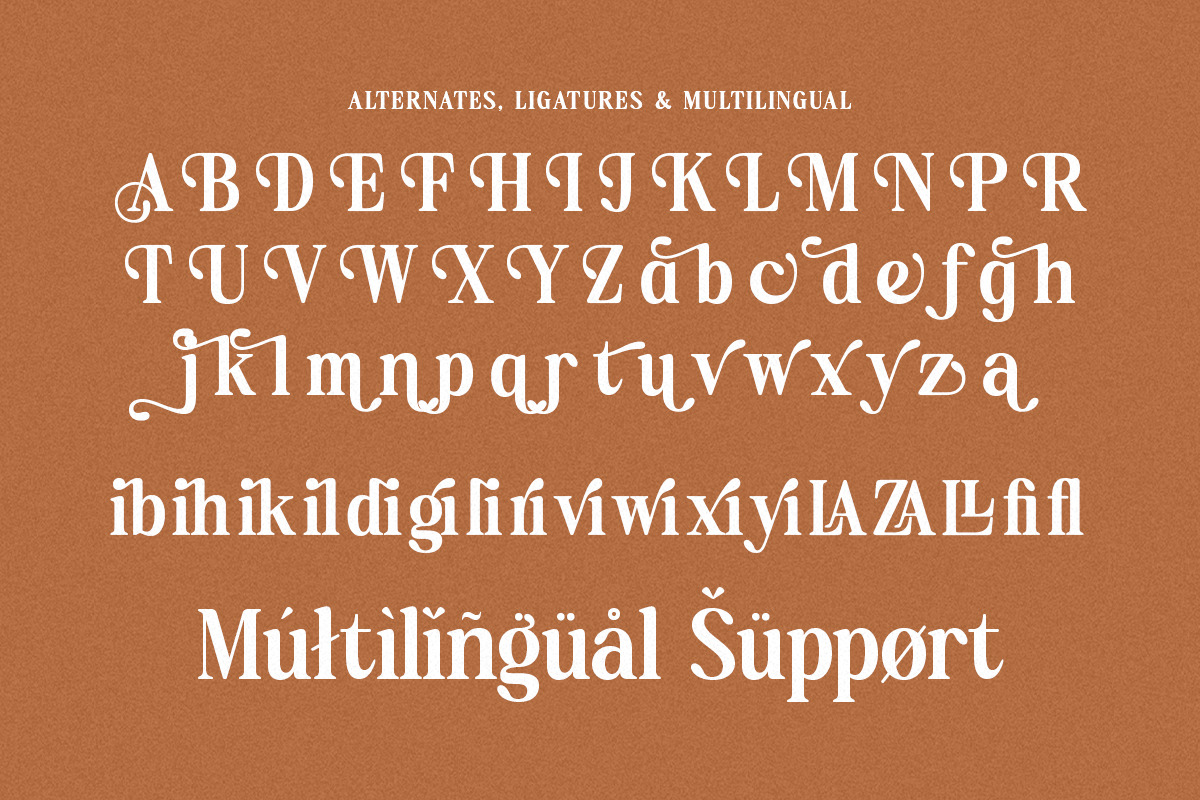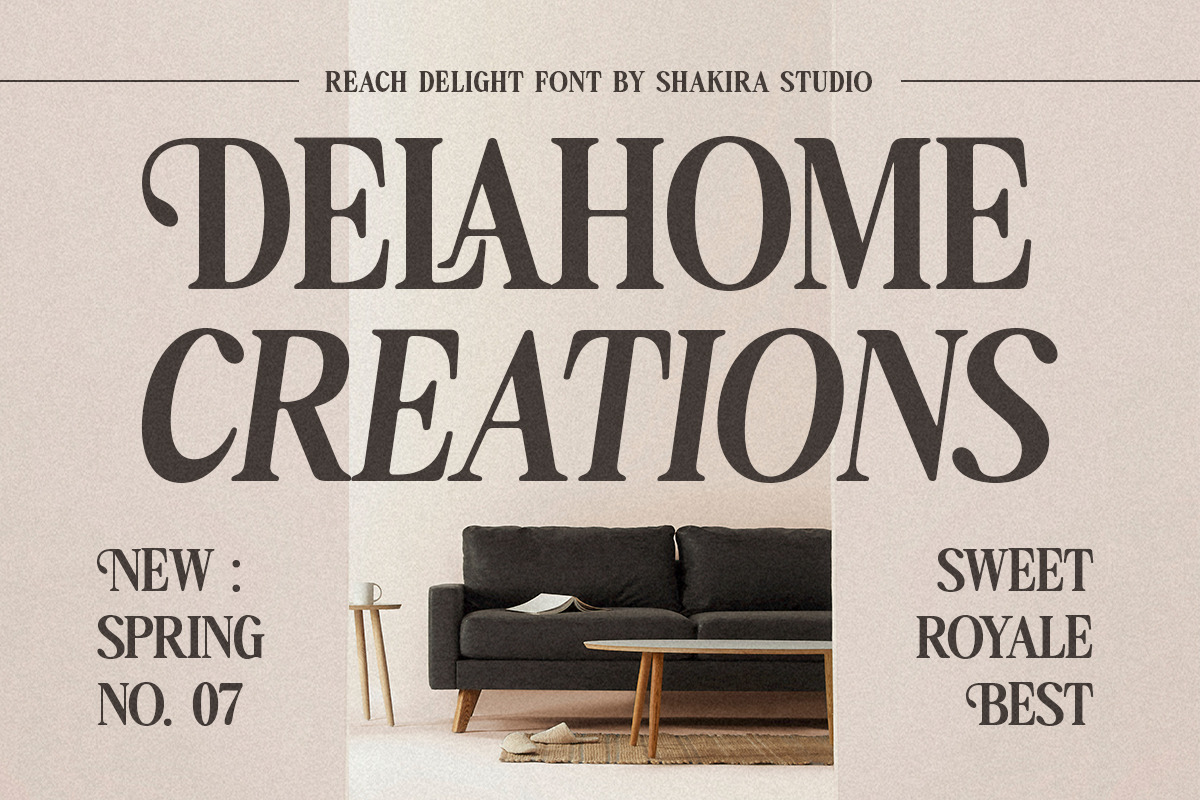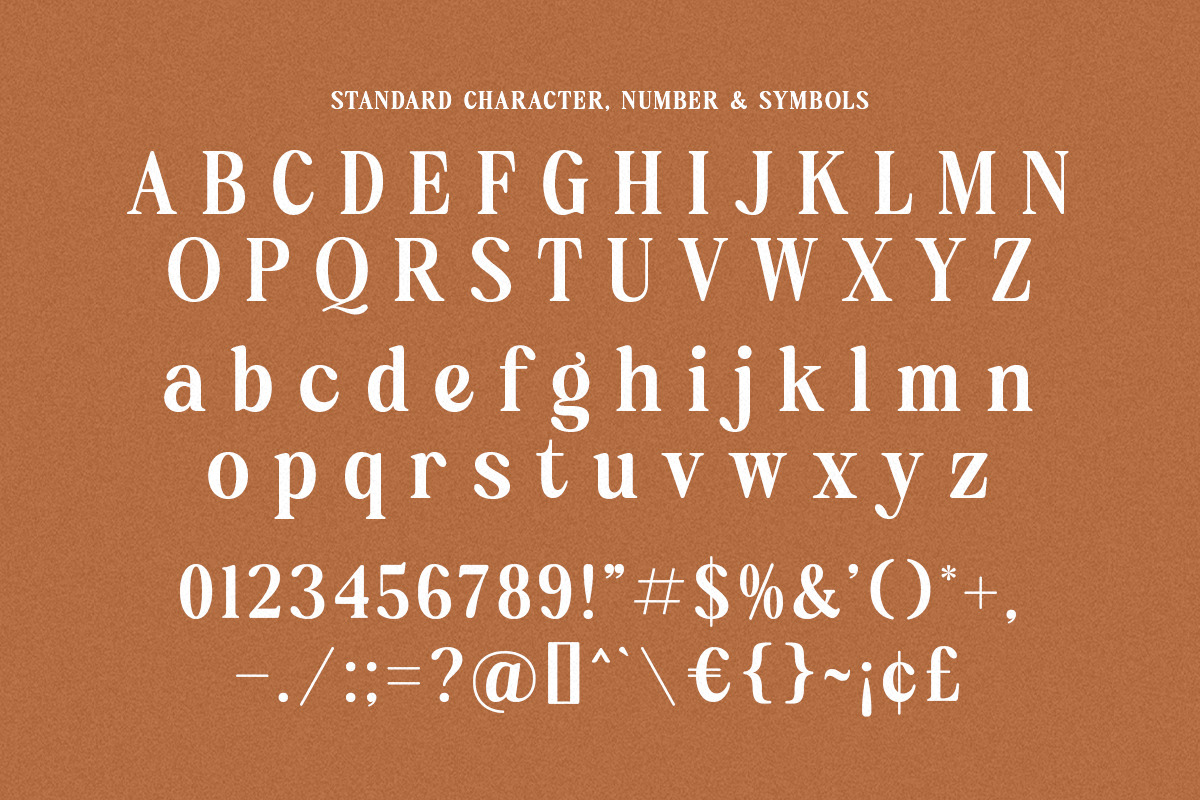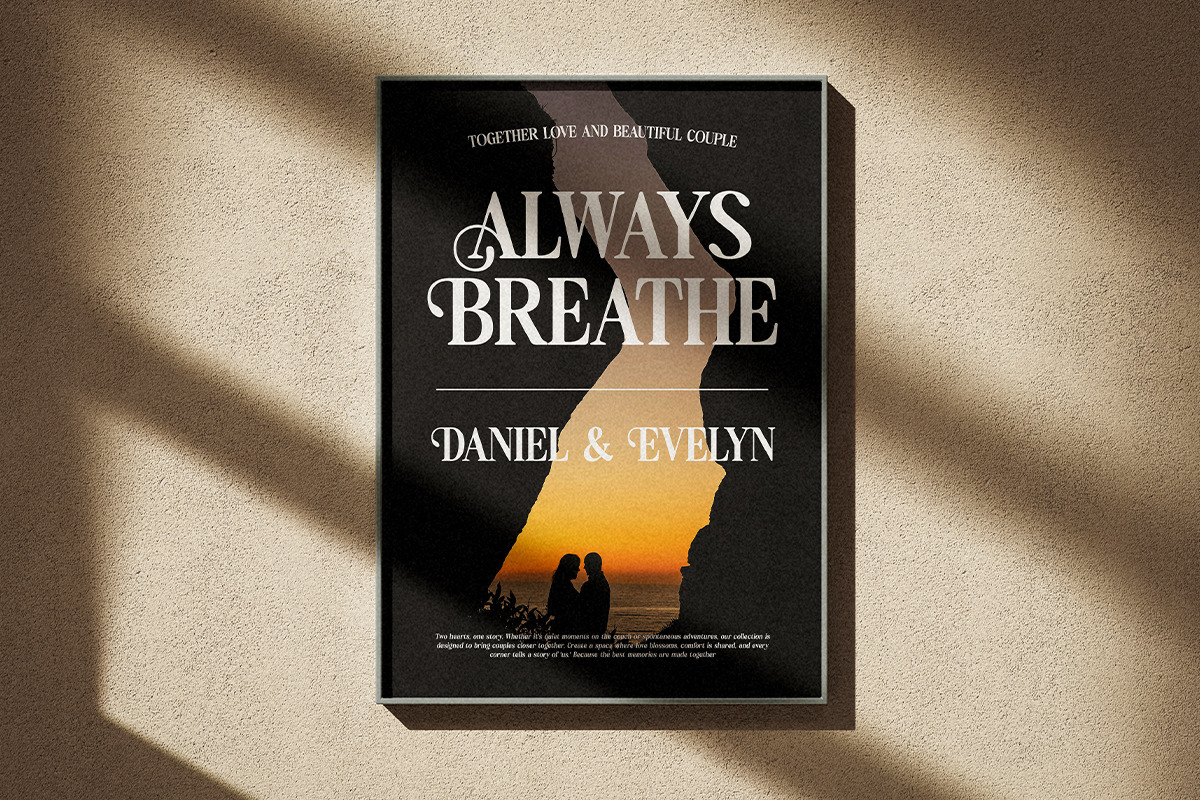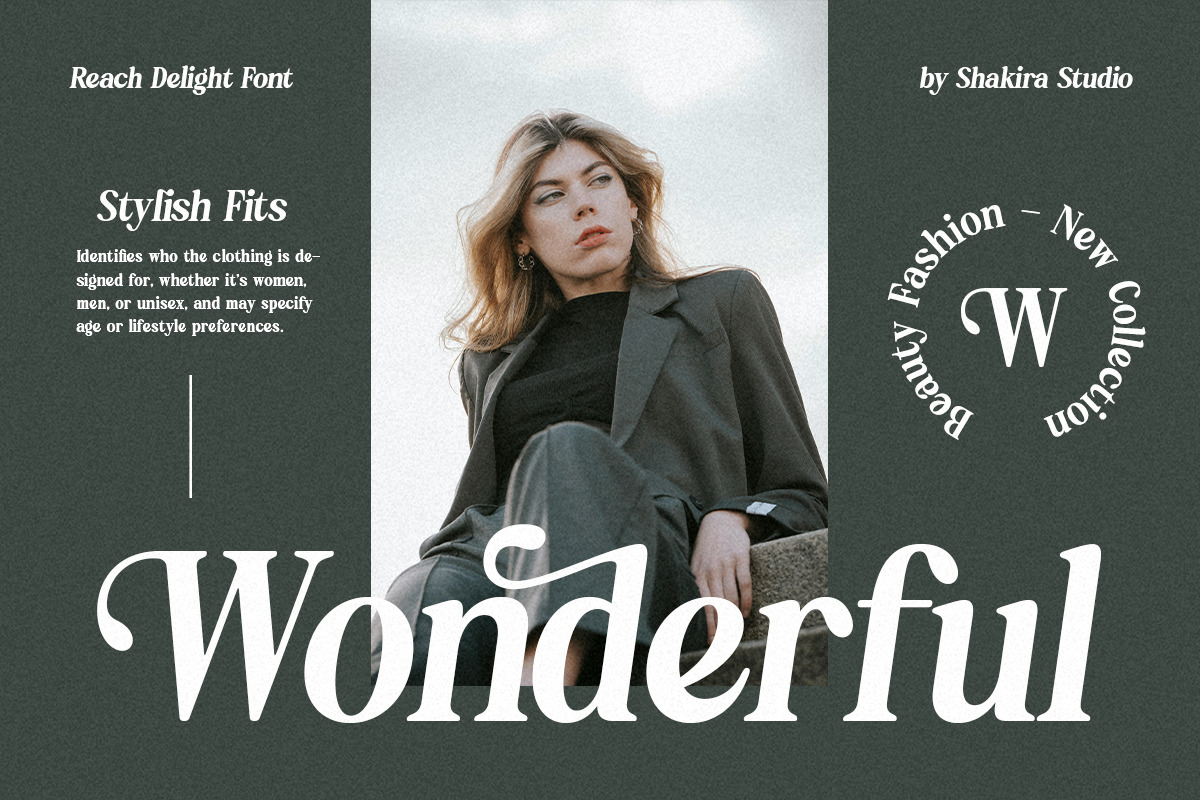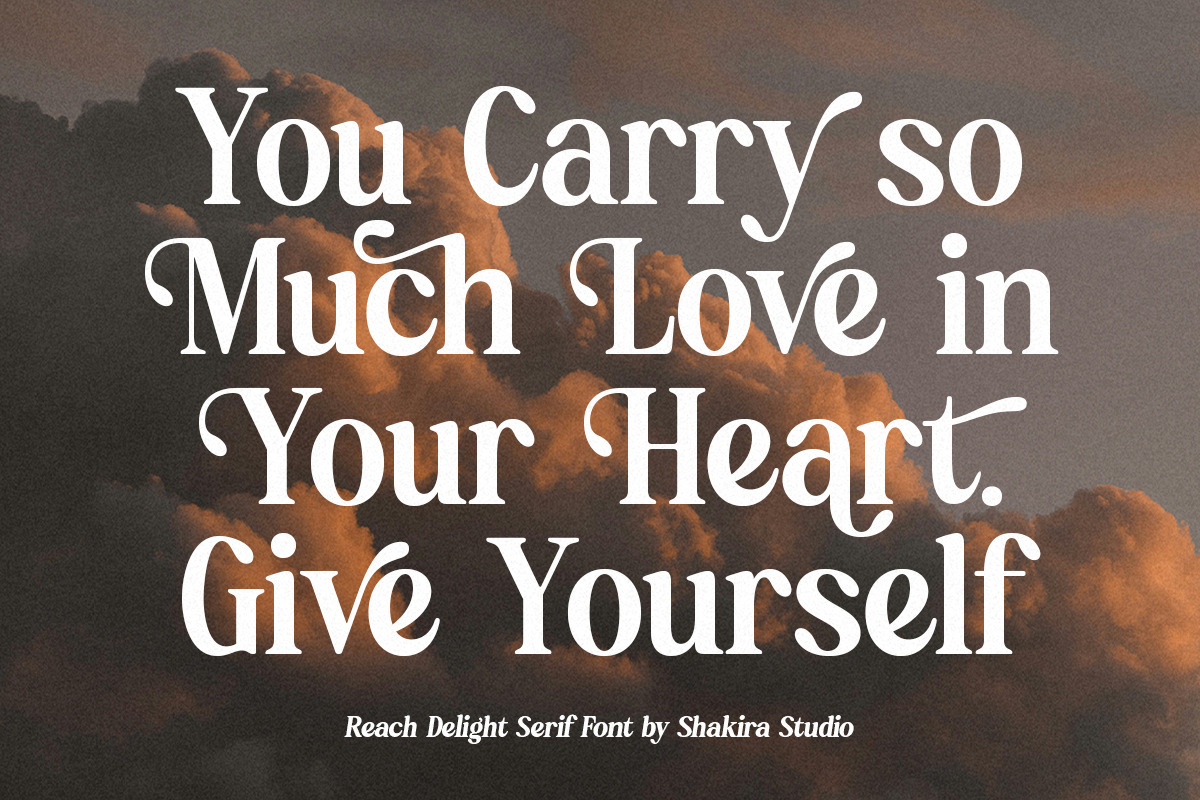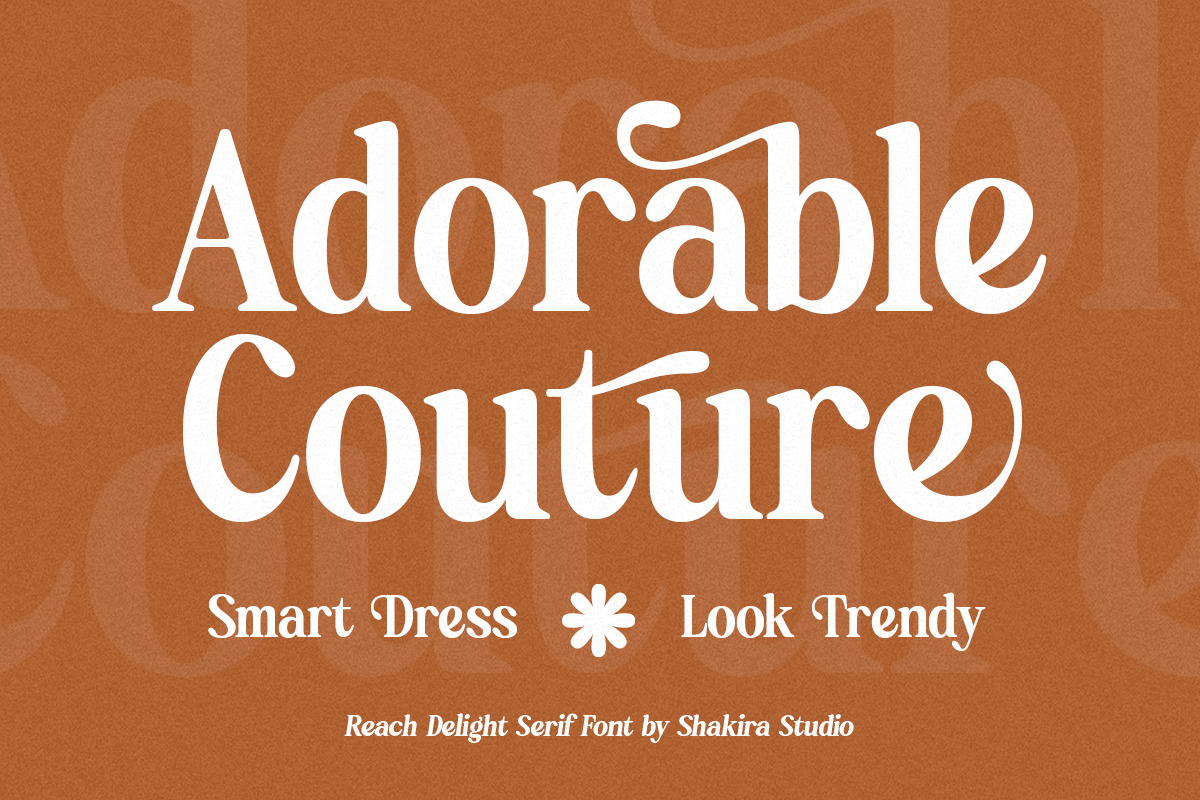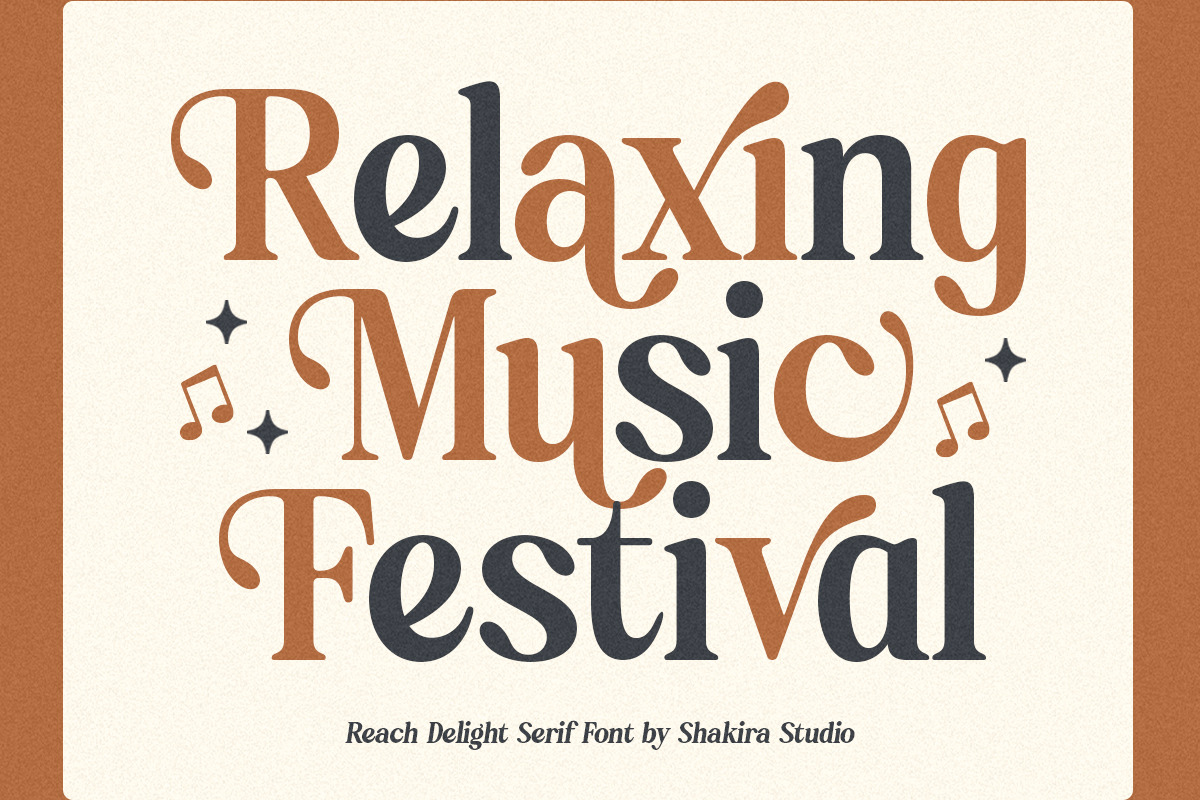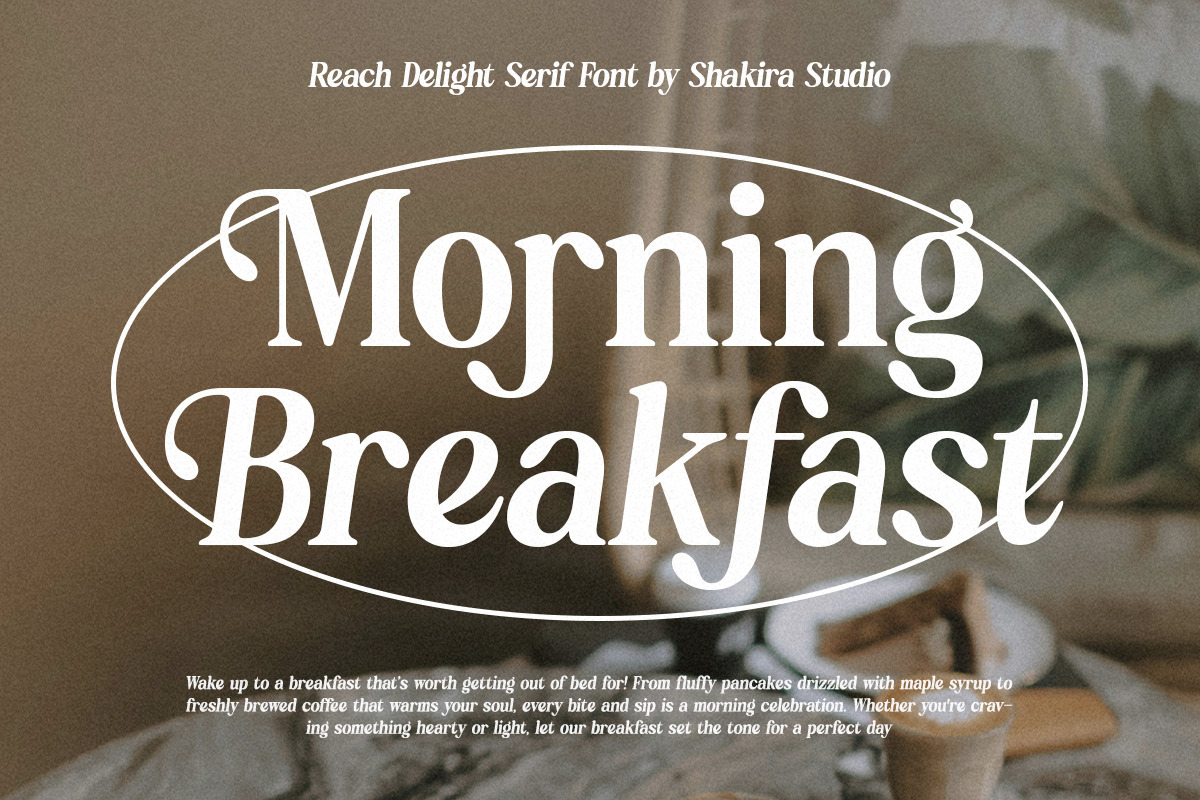
Reach Delight - Modern Retro Serif
"Introducing 'Reach Delight,' a modern retro serif display font that brings a vintage flair to your contemporary designs. Featuring both Regular and Italic styles, this font comes packed with stylish alternates and ligatures, allowing endless creative possibilities. Whether you're working on bold branding, editorial projects, or social media graphics, 'Reach Delight' offers timeless charm and versatility. Its unique blend of retro aesthetics and modern design sensibilities makes it the perfect choice for any project, ensuring your typography stands out."
- Regular & Italic
- All Multilingual symbol
- Opentype features ( ligature, alternate )
Multilingual character supports : (Afrikaans, Albanian, Catalan, Croatian, Czech, Danish, Dutch, English, Estonian, Finnish, French, German, Hungarian, Icelandic, Italian, Lithuanian, Maltese, Norwegian, Polish, Portuguese, Slovenian, Spanish, Swedish, Turkish, Zulu)